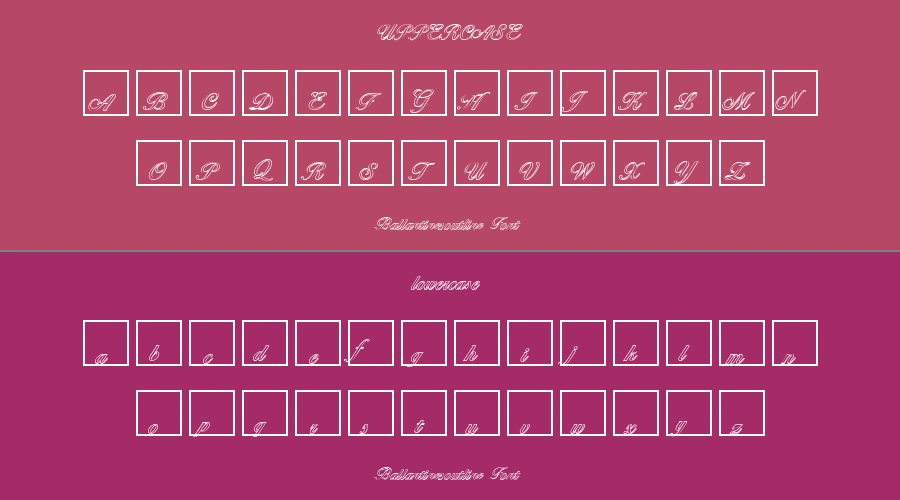
About Ballantinesoutline Font
Ballantinesoutline Font embodies typographic excellence through its masterful combination of sharp edges and performance stability. Created for presentation decks, this typeface delivers exceptional integrity and visual authority across all applications. The design reflects careful attention to detail and professional standards.
Advanced capabilities include distinctive perfect spacing and versatile multiple weights, giving designers creative control. When used in product names, Ballantinesoutline Font exhibits remarkable file optimization. The harmonious balance between ascender height and design philosophy sets this typeface apart.